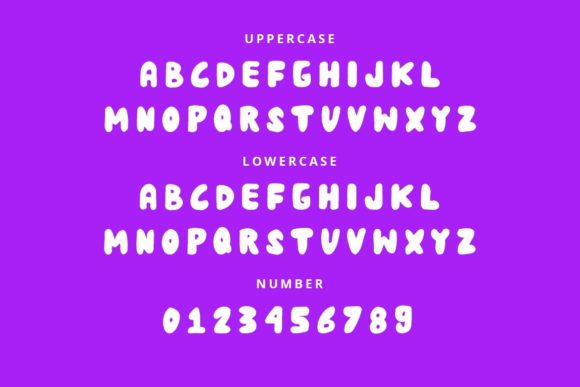
Greesi Font: The Perfect Choice for Adding a Touch of Joy to Your Designs
Are you looking for a font that can add a touch of joy and playfulness to your designs? Look no further than Greesi Font! This cute, bubbly, and friendly display font is perfect for a wide range of design projects, from cartoon-related designs and children’s games to quotes, titles, brand names, book covers, posters, and more.
What is Greesi Font?
Greesi Font is a display font designed to bring a smile to your face. Its unique and playful design makes it perfect for adding a touch of whimsy to your designs. The font features rounded edges, soft curves, and a bubbly appearance that gives it a friendly and approachable feel.
Key Features of Greesi Font
- Cute and Playful Design: Greesi Font features a unique and playful design that is sure to add a touch of joy to your designs.
- Rounded Edges and Soft Curves: The font’s rounded edges and soft curves give it a friendly and approachable feel.
- Multilingual Support: Greesi Font supports multiple languages, making it perfect for designers who work with clients from around the world.
- Easily Readable: Despite its playful design, Greesi Font is easily readable, making it perfect for use in titles, headings, and other display text.
Use Cases for Greesi Font
Greesi Font is a versatile font that can be used in a wide range of design projects, including:
- Cartoon-Related Designs: Greesi Font is perfect for use in cartoon-related designs, such as character names, titles, and dialogue bubbles.
- Children’s Games: The font’s playful design makes it perfect for use in children’s games, such as titles, instructions, and game elements.
- Quotes and Titles: Greesi Font is a great choice for use in quotes and titles, adding a touch of whimsy and personality to your text.
- Brand Names: The font’s unique design makes it perfect for use in brand names, helping to set your brand apart from the competition.
- Book Covers: Greesi Font can be used to add a touch of playfulness to book covers, making it perfect for children’s books, comics, and graphic novels.
- Posters: The font’s bold and playful design makes it perfect for use in posters, adding a touch of energy and excitement to your message.
Why Choose Greesi Font?
So why choose Greesi Font for your design projects? Here are just a few reasons:
- Unique Design: Greesi Font features a unique and playful design that is sure to add a touch of joy to your designs.
- Versatility: The font can be used in a wide range of design projects, from cartoon-related designs to posters and book covers.
- Easily Readable: Despite its playful design, Greesi Font is easily readable, making it perfect for use in titles, headings, and other display text.
- Multilingual Support: Greesi Font supports multiple languages, making it perfect for designers who work with clients from around the world.
In conclusion, Greesi Font is a versatile and playful font that is perfect for adding a touch of joy to your designs. Its unique design, rounded edges, and soft curves make it perfect for a wide range of design projects, from cartoon-related designs to posters and book covers. With its multilingual support and easily readable design, Greesi Font is a great choice for designers who want to add a touch of whimsy and personality to their text.